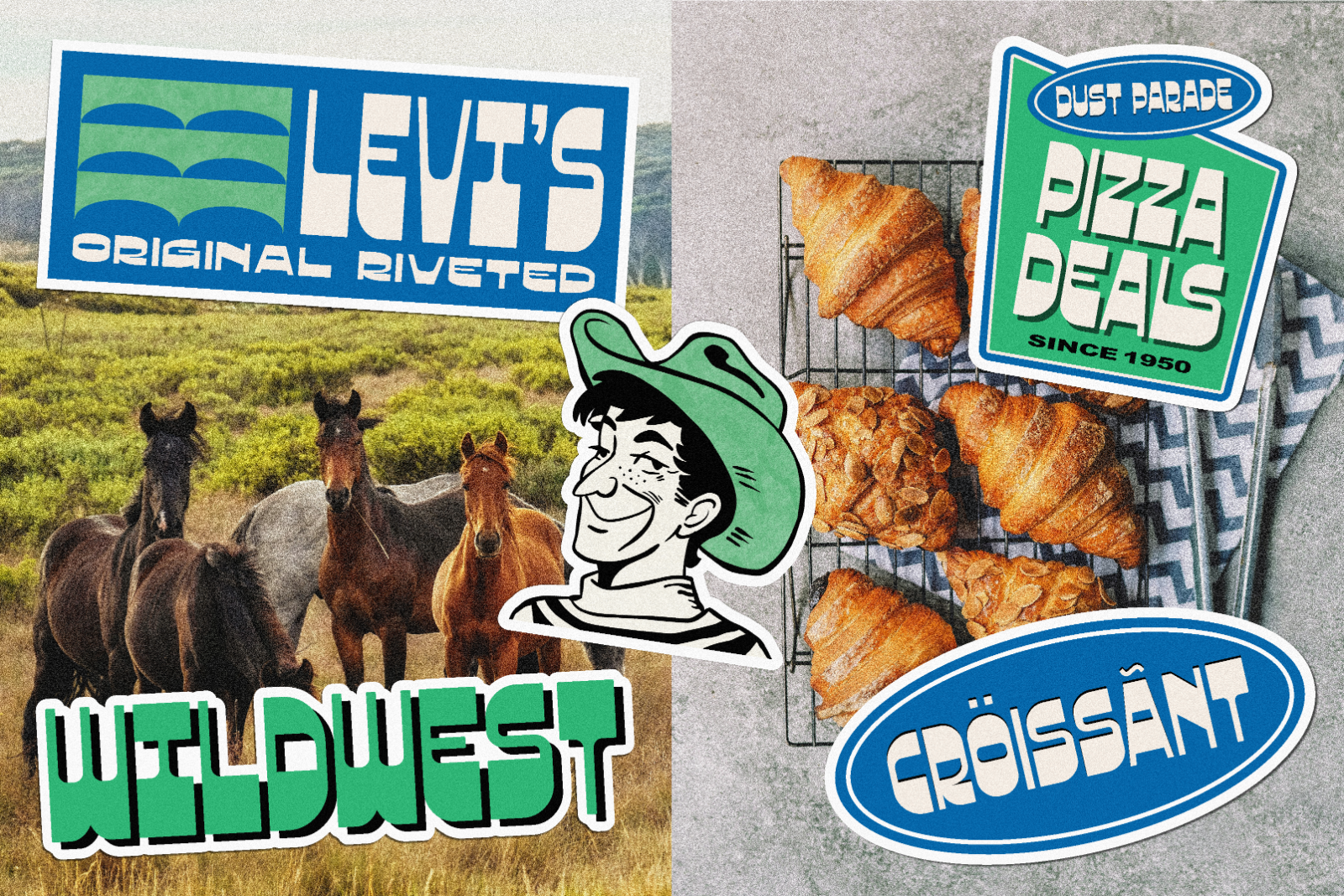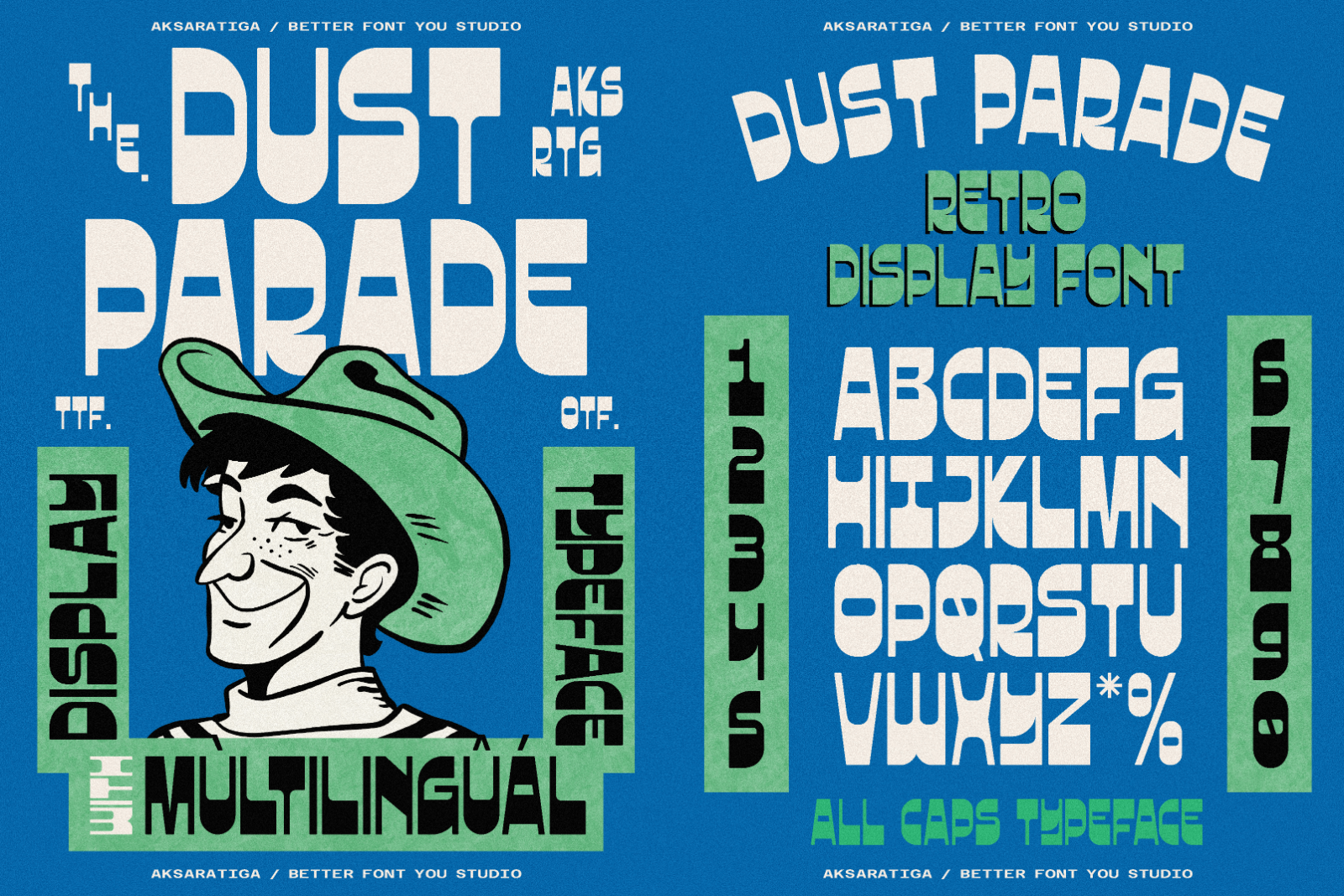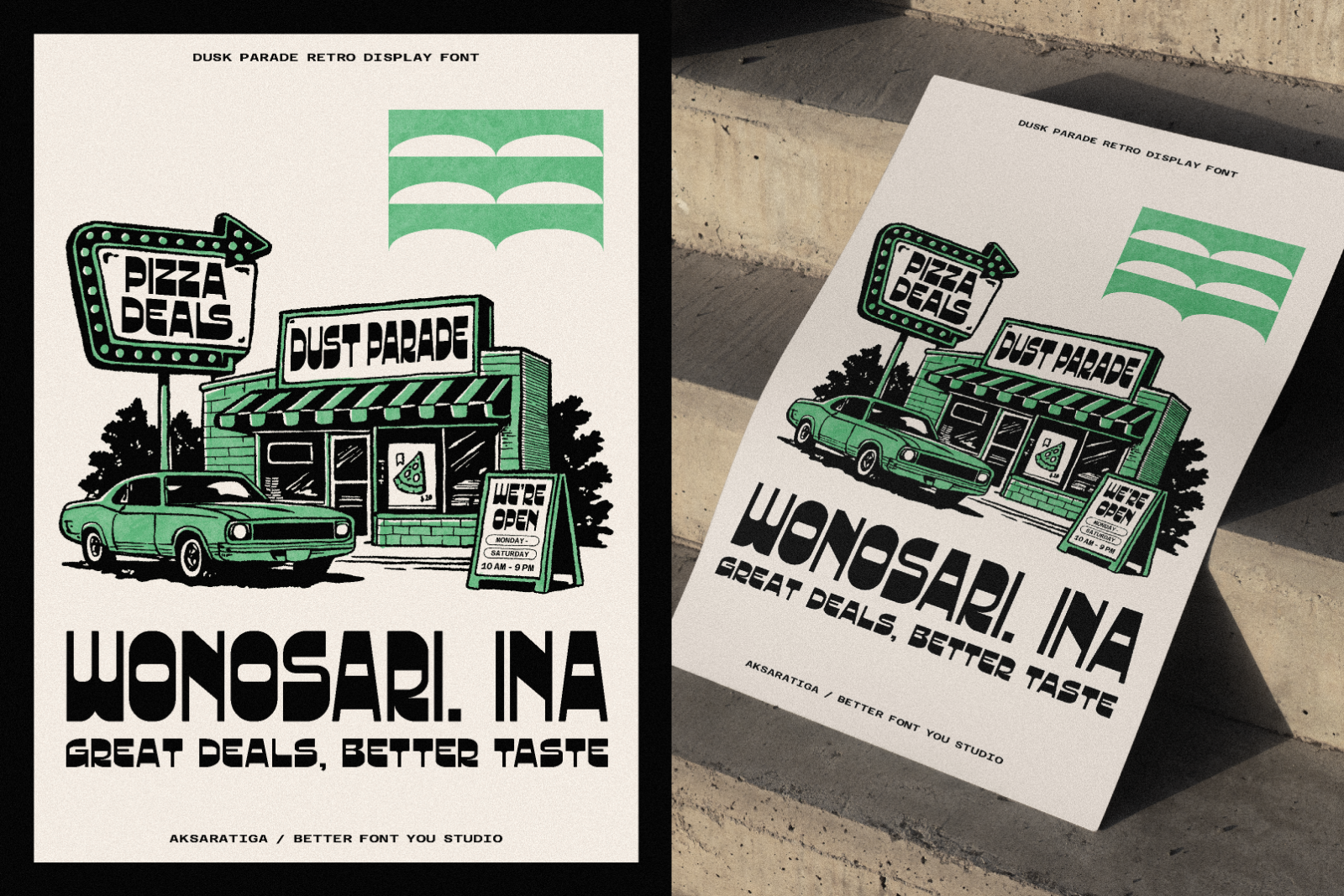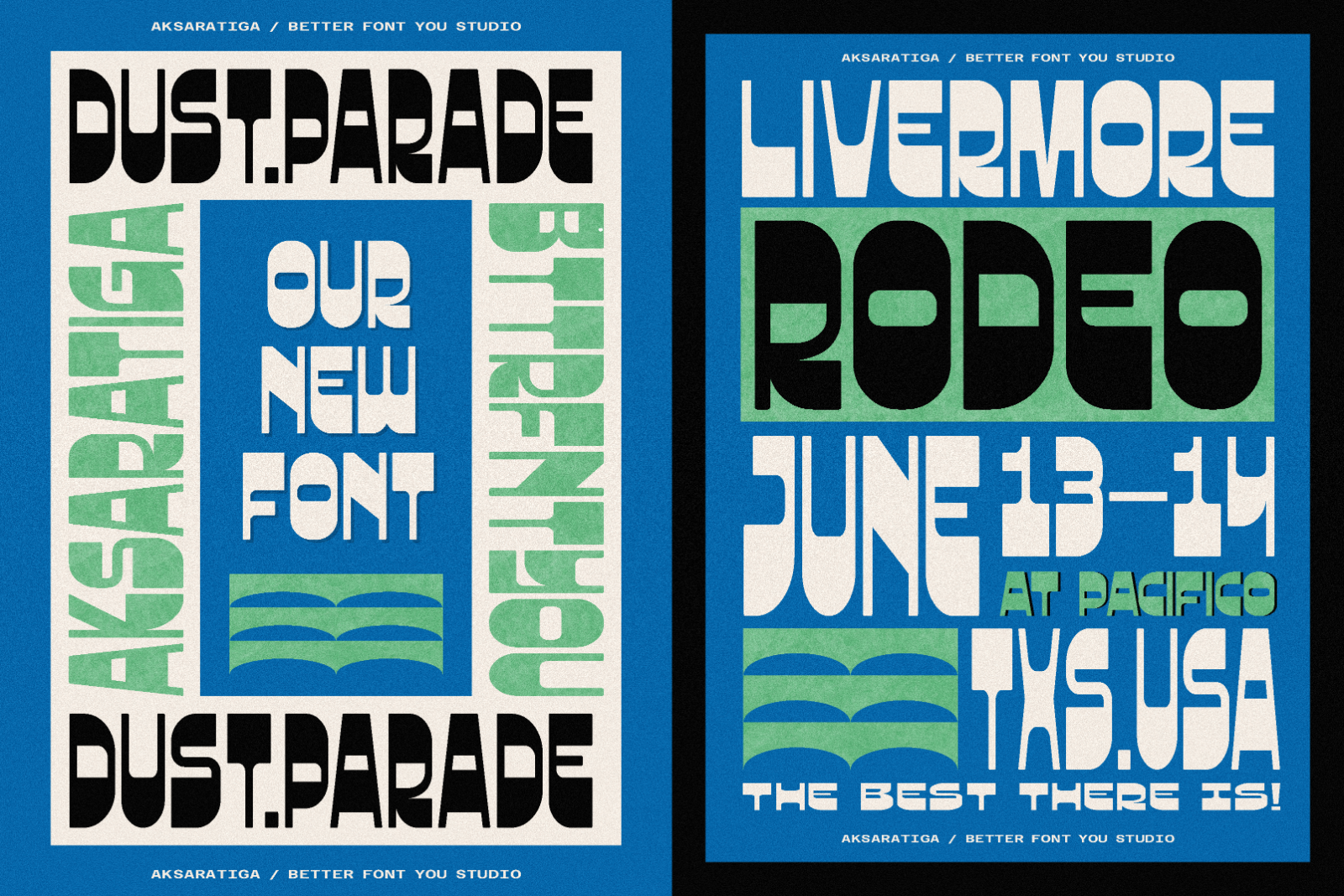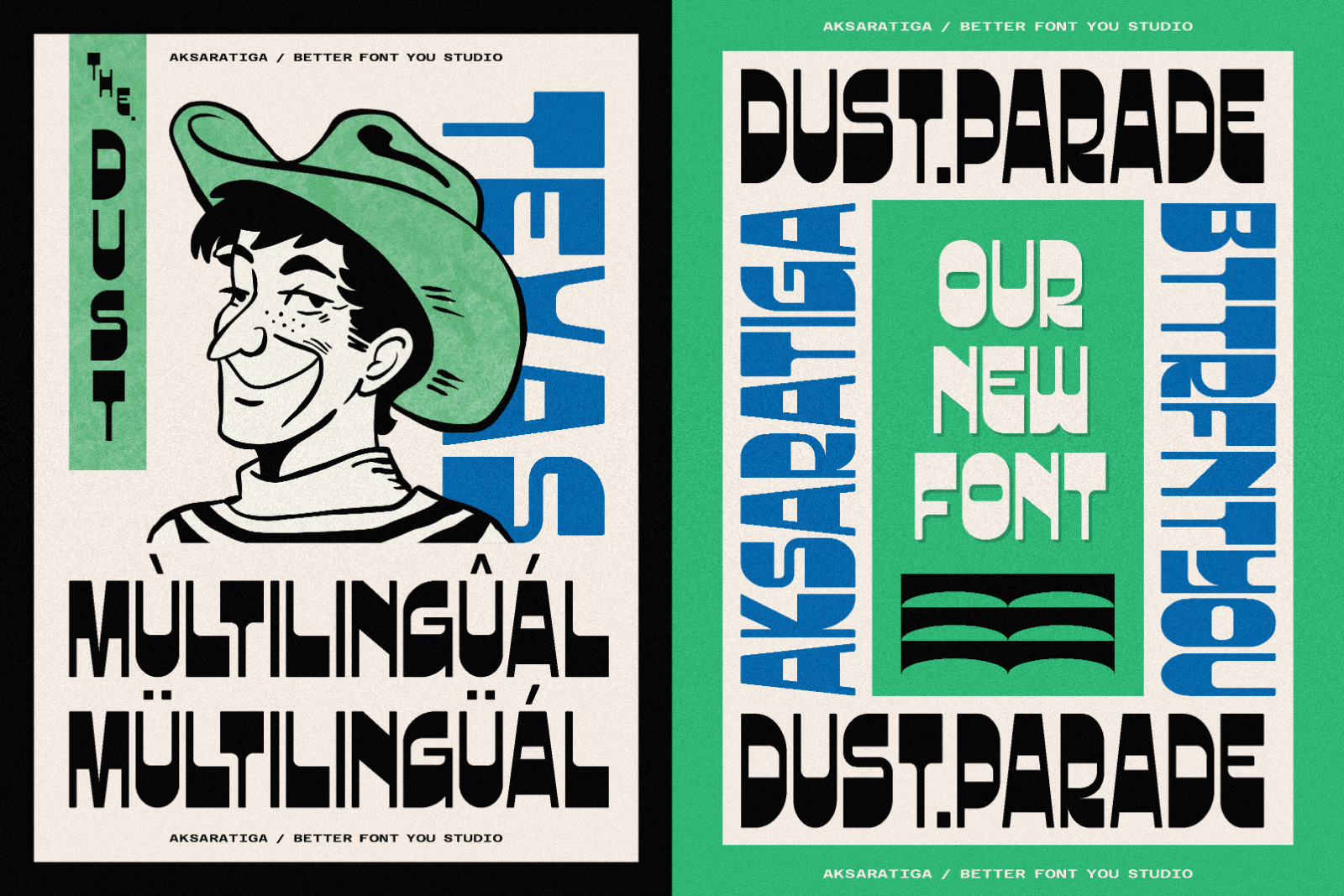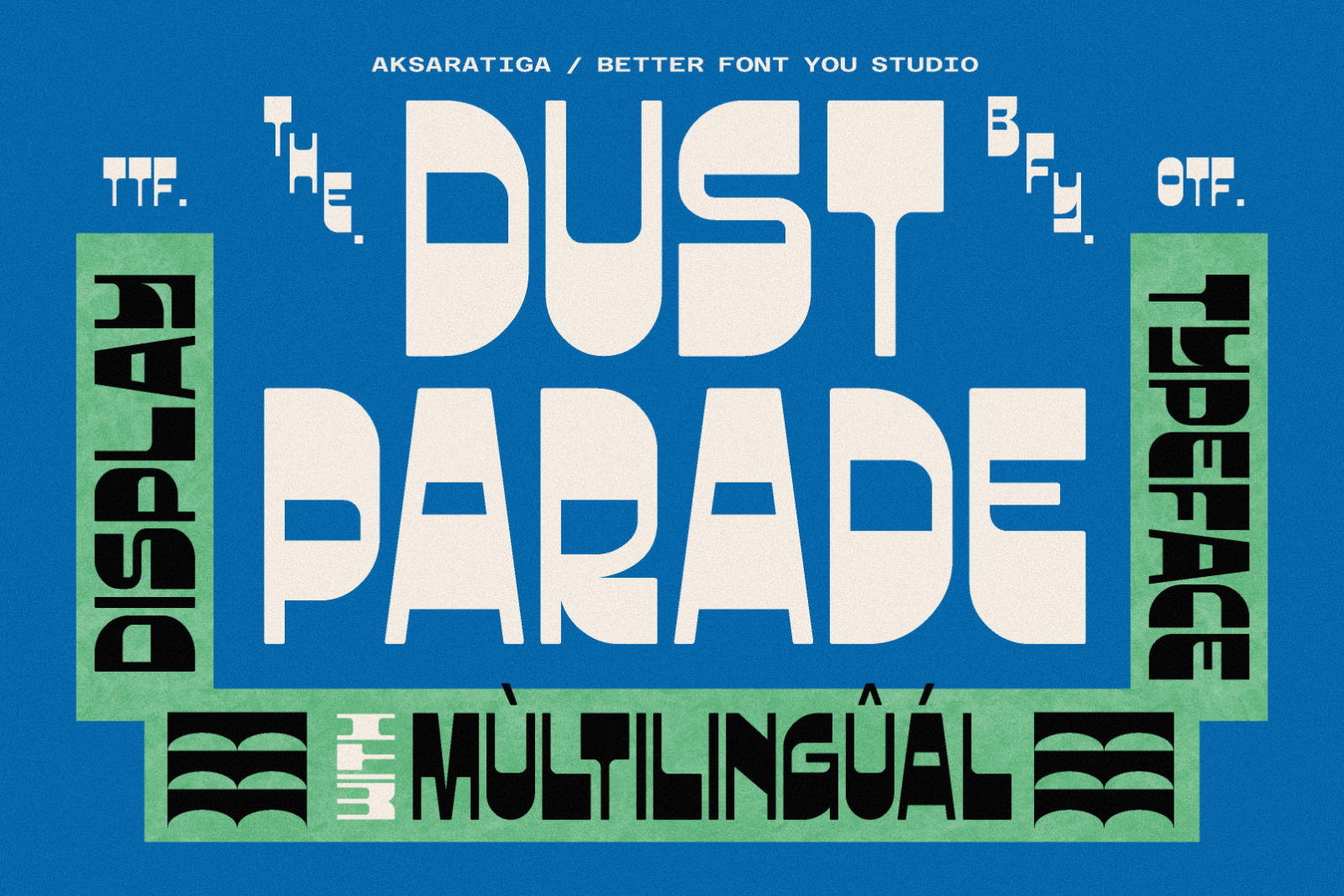
Dust Parade is a bold retro display typeface by Aksaratiga Studio, inspired by the golden age of roadside Texas-Americana, vintage diners, and mid-century commercial signage. It blends nostalgic character with modern versatility, making it perfect for branding, packaging, posters, signage, logos, and any project that seeks a timeless retro appeal with a contemporary edge.